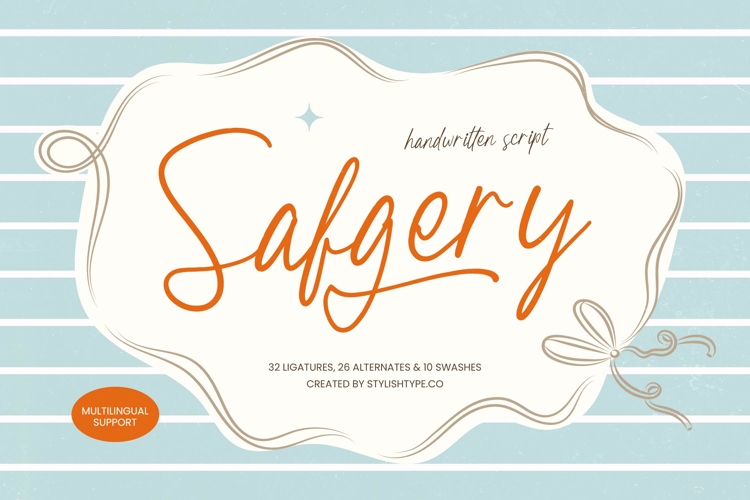
Safgery - Handwritten Script Font
Experience the epitome of effortless elegance with Safgery - Handwritten Script Font, a typeface designed to infuse your creative projects with a natural, handcrafted aesthetic. This refined script balances fluid penmanship with a modern sensibility, capturing an authentic human touch that resonates with audiences seeking sophistication and originality. Its graceful strokes and rhythmic flow make it an essential tool for designers looking to elevate their visual storytelling.
Unlock limitless creative potential across a variety of premium niche markets. Safgery - Handwritten Script Font is the perfect choice for luxury branding, wedding invitation suites, and high-end editorial design. Beyond traditional uses, it excels in cosmetic packaging, lifestyle photography overlays, and boutique signage where a personalized feel is paramount. Whether you are crafting a logo design or a social media campaign, this font ensures your message is delivered with unparalleled grace.